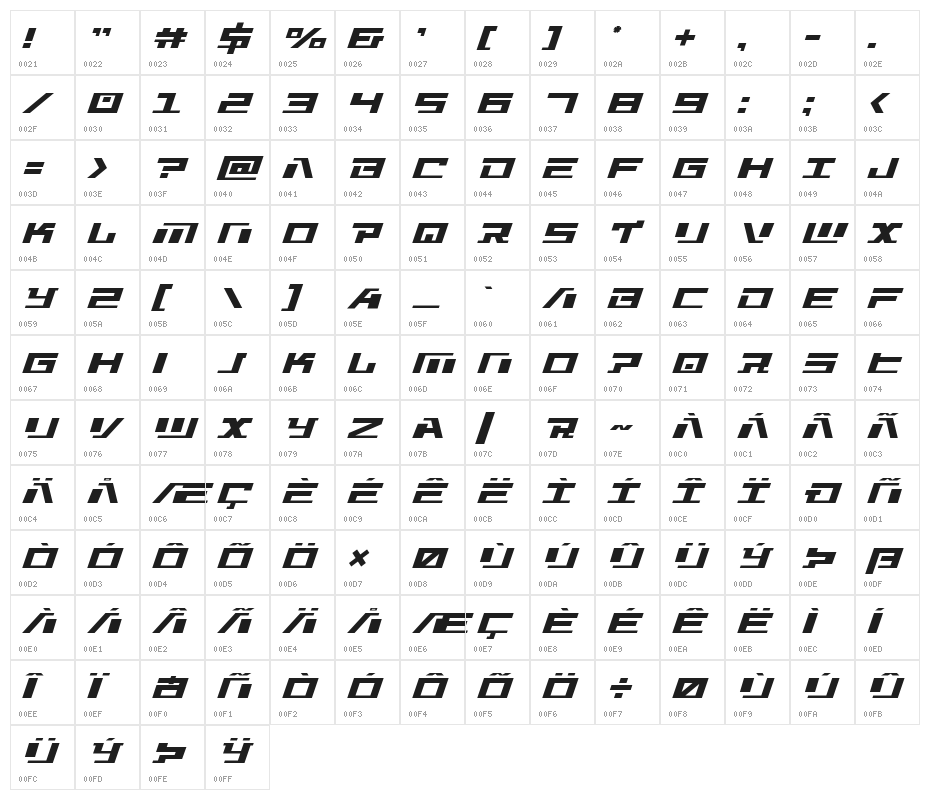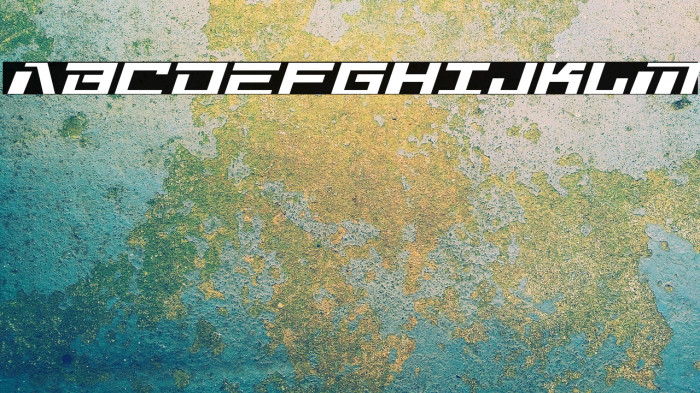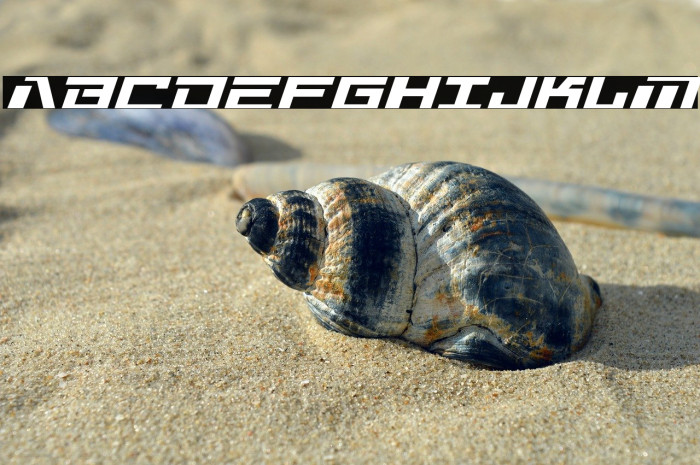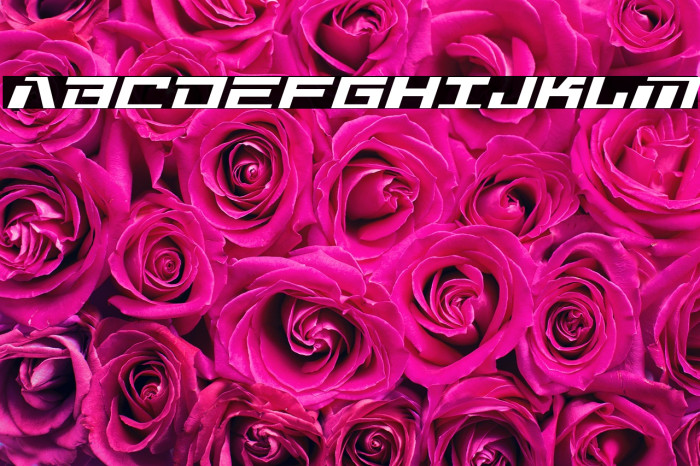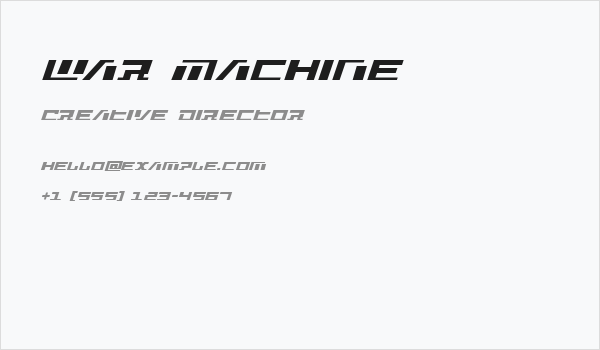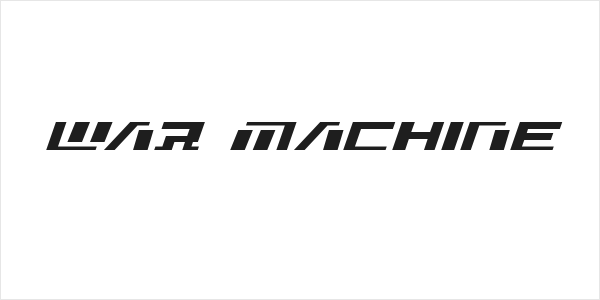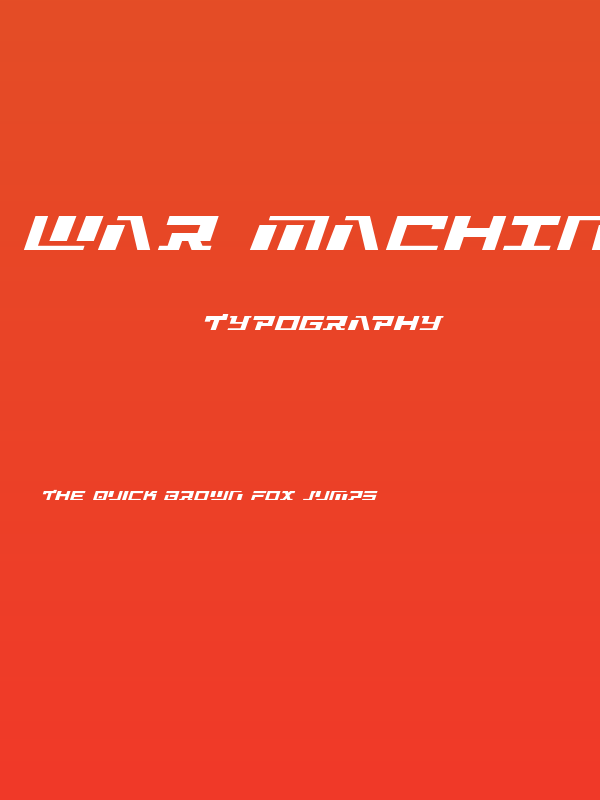
War Machine Font
War Machine Description
This font features a bold, angular design with a futuristic and mechanical aesthetic. The characters are constructed with sharp edges and geometric shapes, giving it a strong and dynamic appearance. The uppercase and lowercase letters maintain a consistent style, with a slight slant that adds to the sense of motion and energy. The numerals and special characters are equally bold and angular, ensuring a cohesive look across all glyphs. This font is ideal for projects that require a modern, tech-inspired feel, such as video game titles, sci-fi movie posters, or technology branding.
| Overall Style | Futuristic, Mechanical |
| Proposed Projects | Ideal for video game titles, sci-fi movie posters, technology branding, and futuristic designs. |